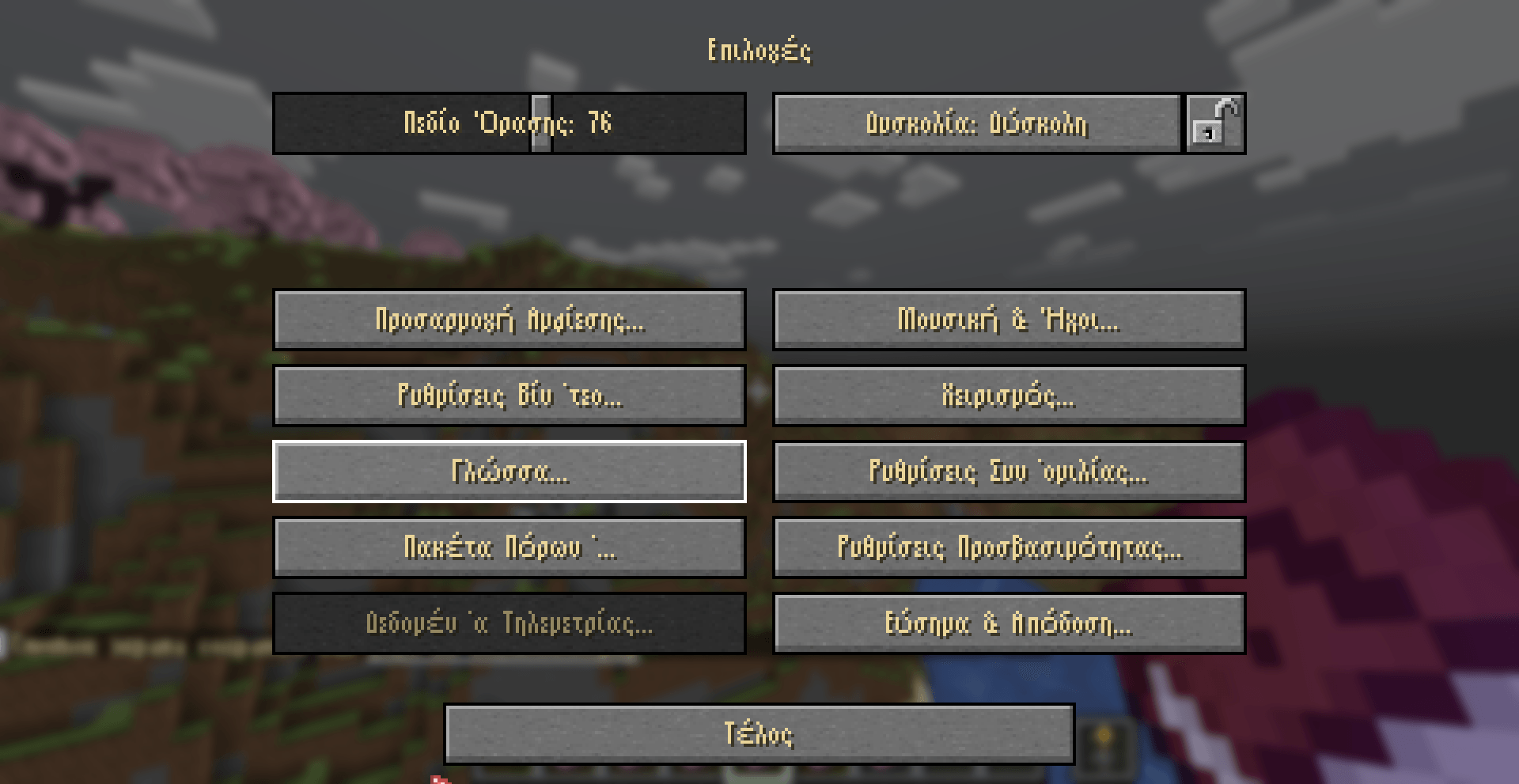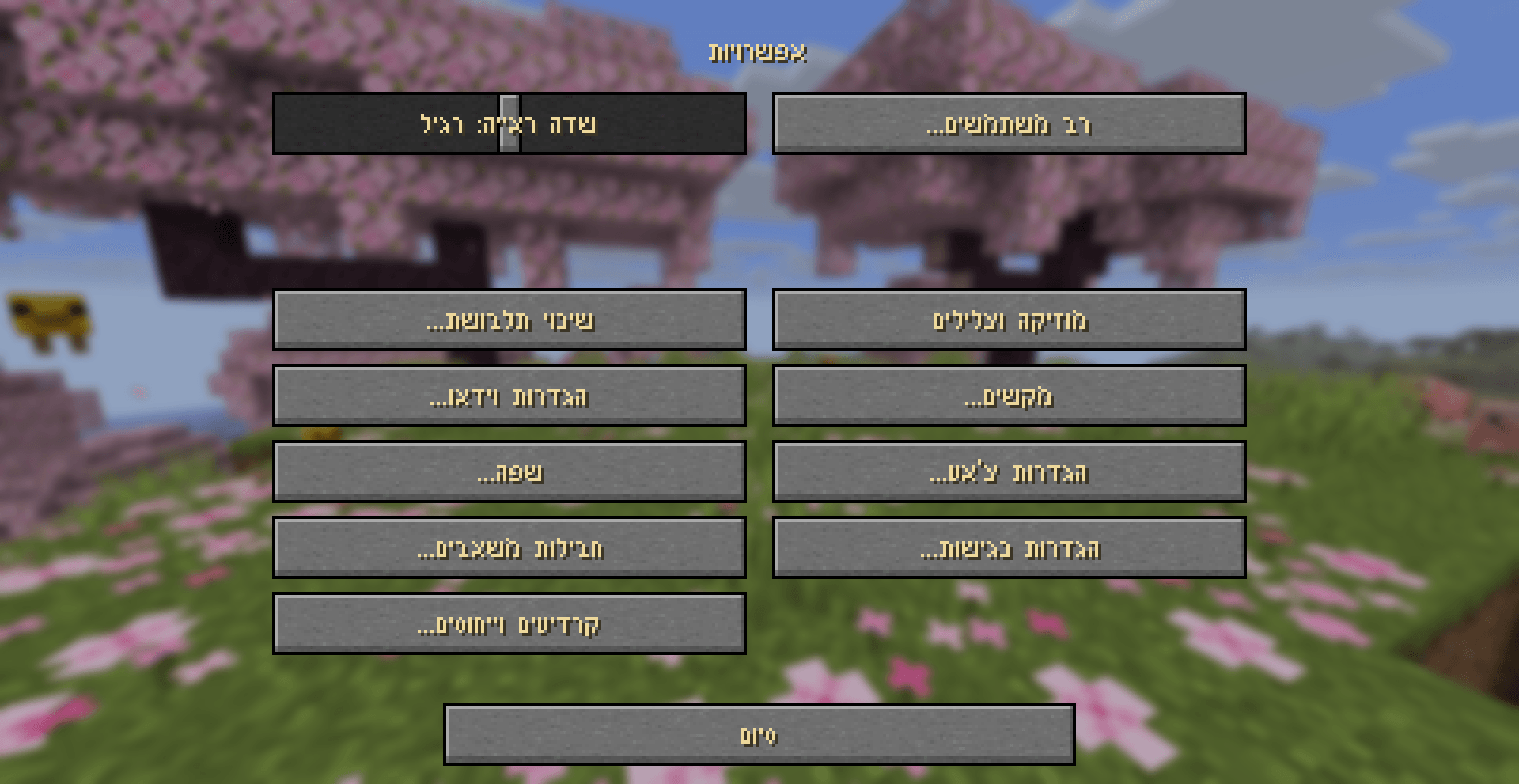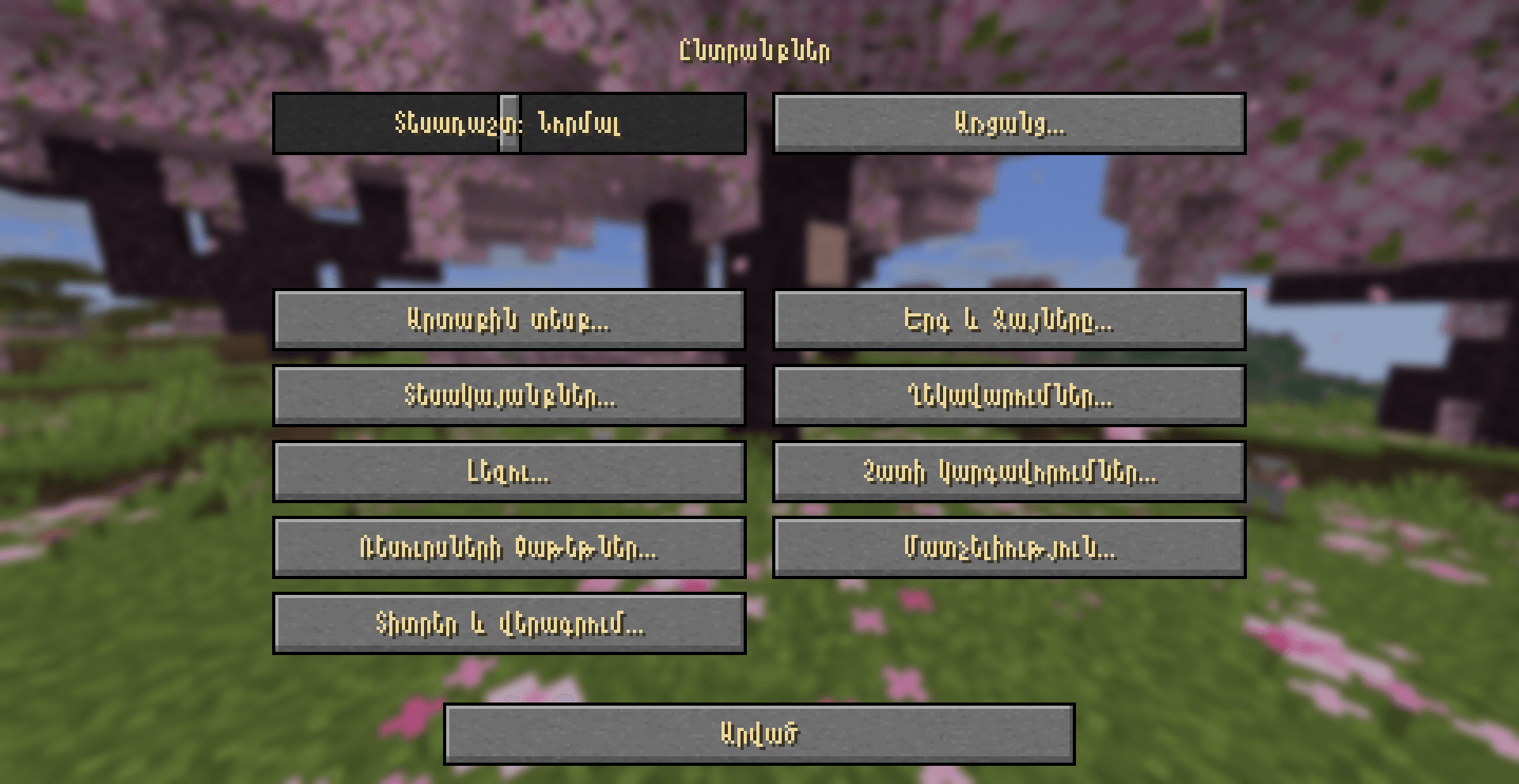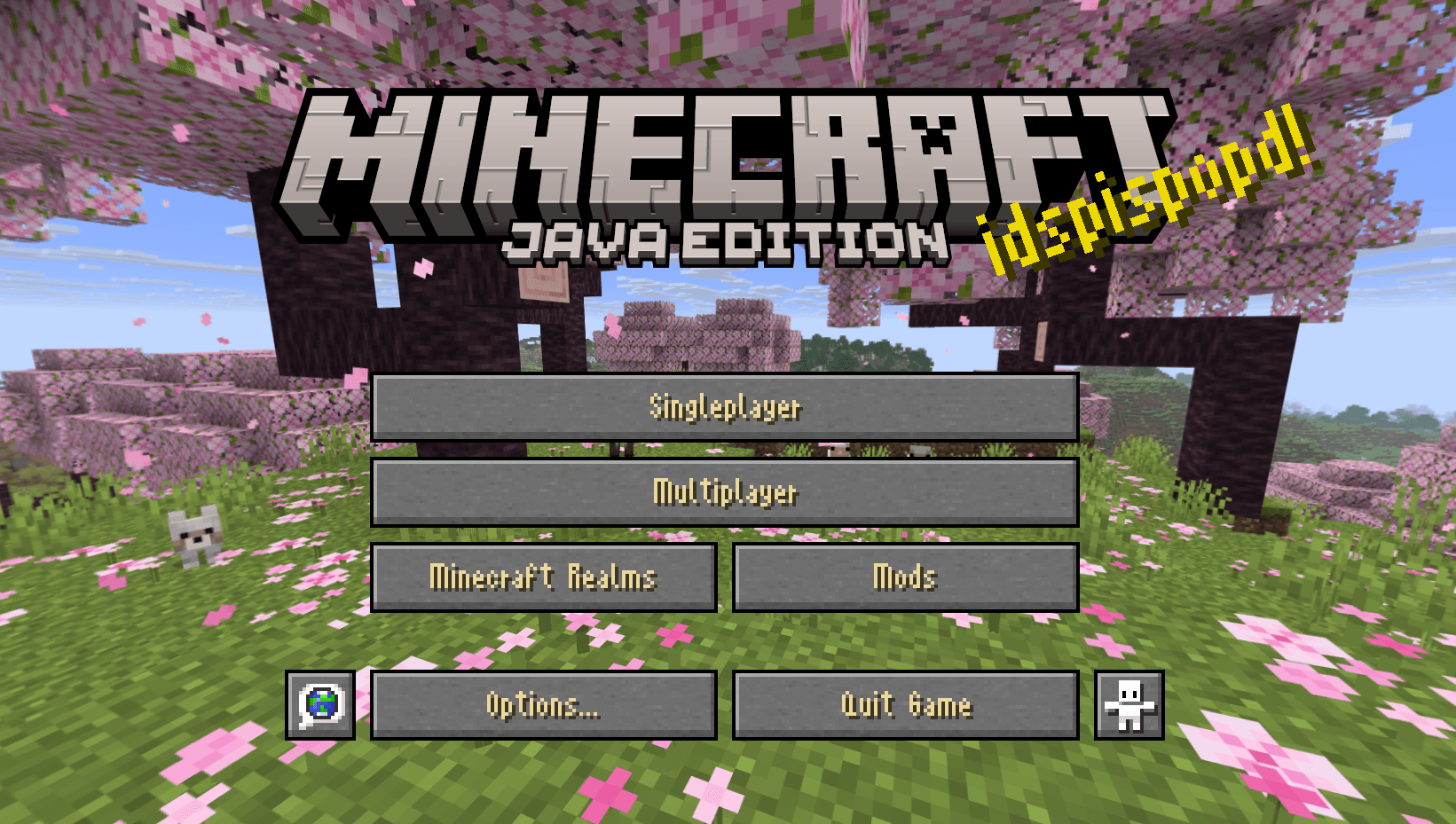
Paramita Font
A compact and refined font.
Unicode with special characters support (BETA)
Support for Cyrillic script (BETA)
Support for Greek script (BETA)
Support for Hebrew script (BETA)
Support for Armenian script (BETA)
Non-latin characters support (BETA)